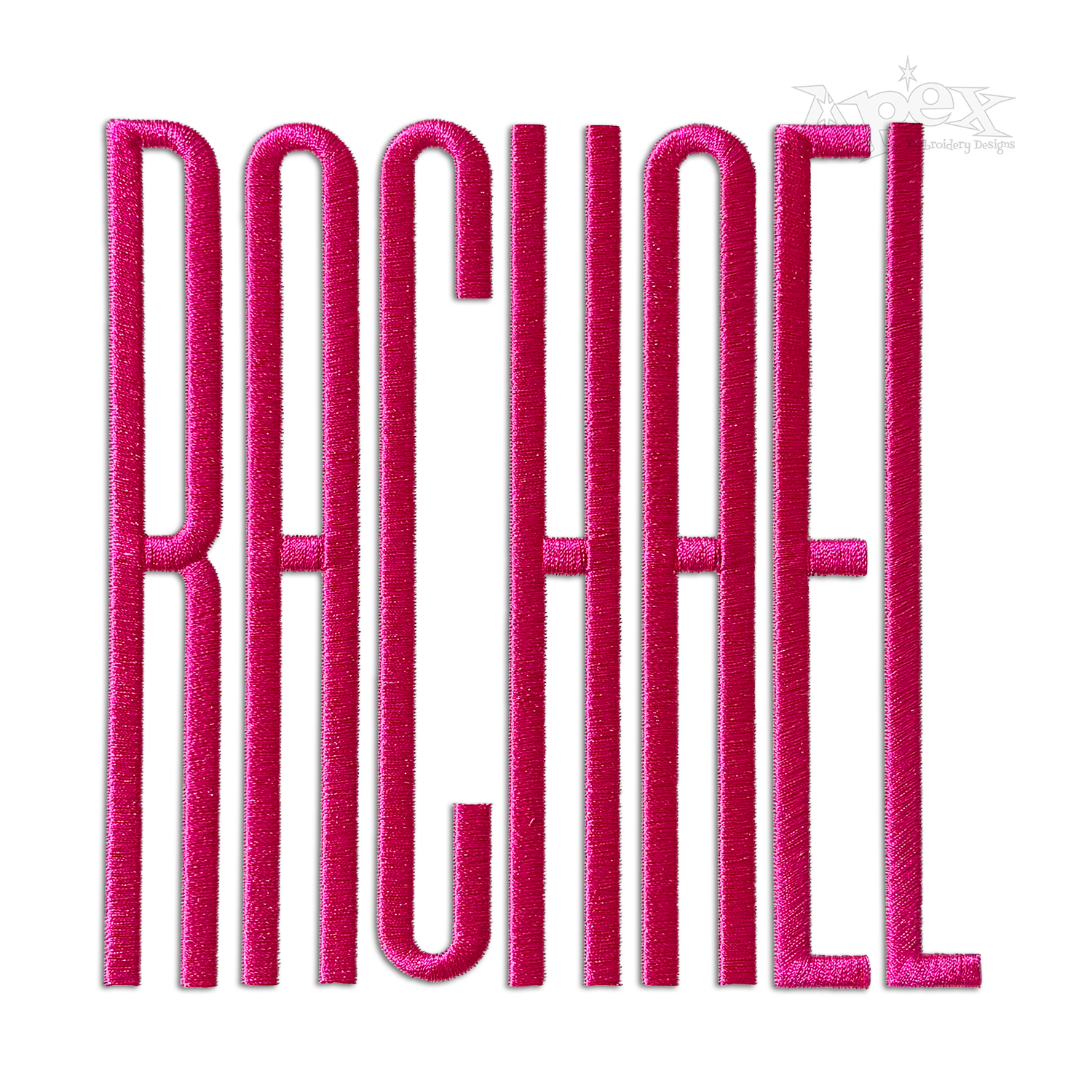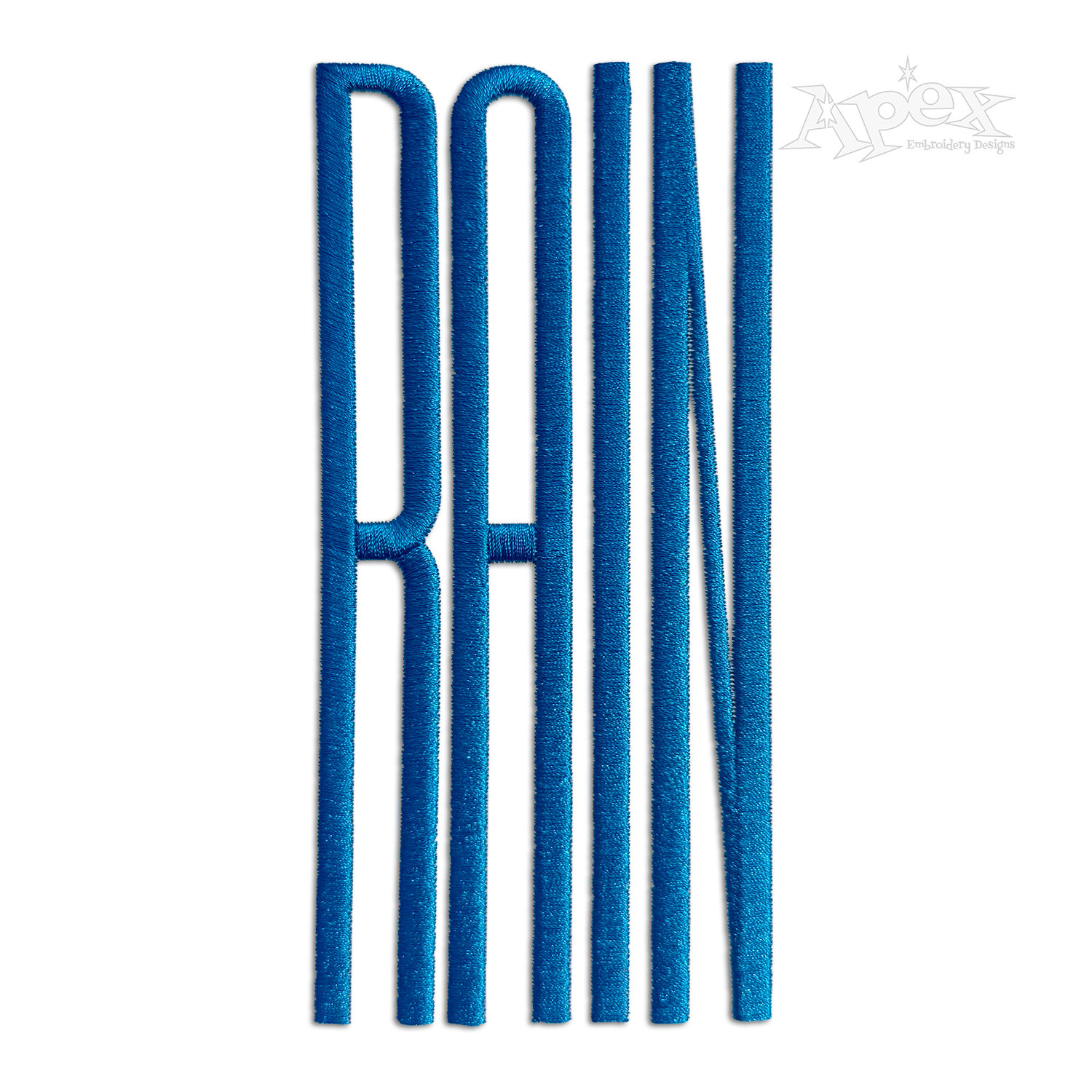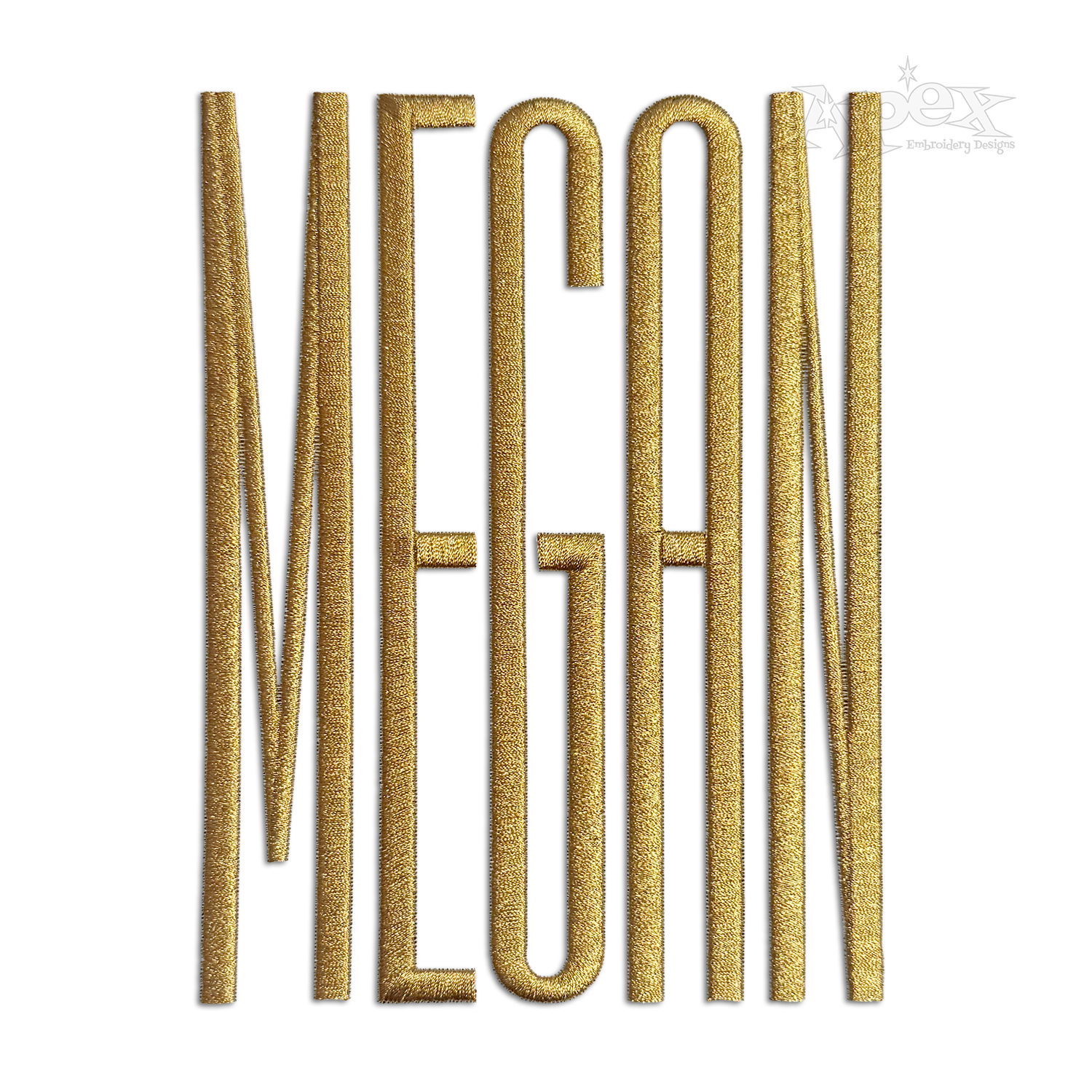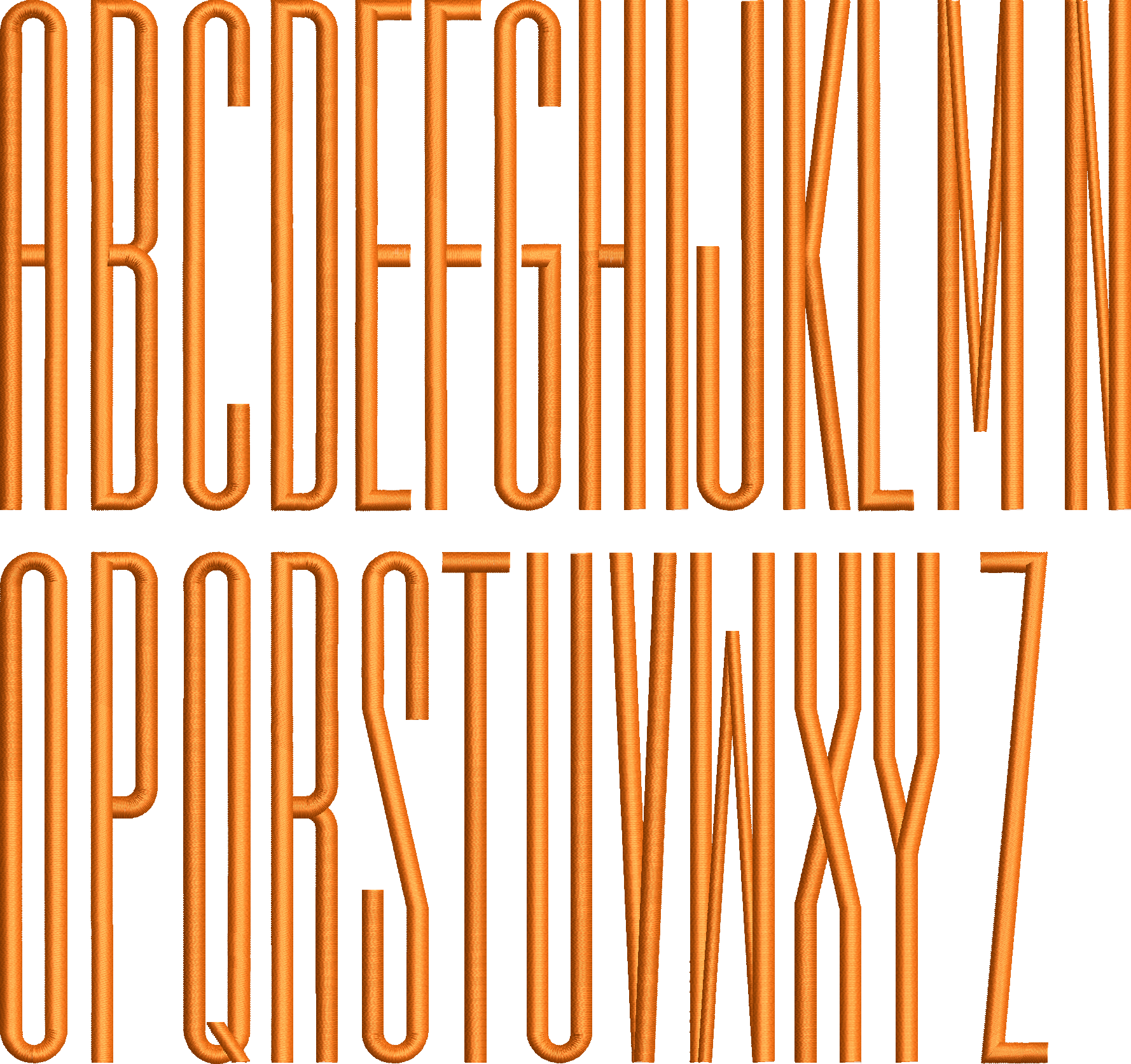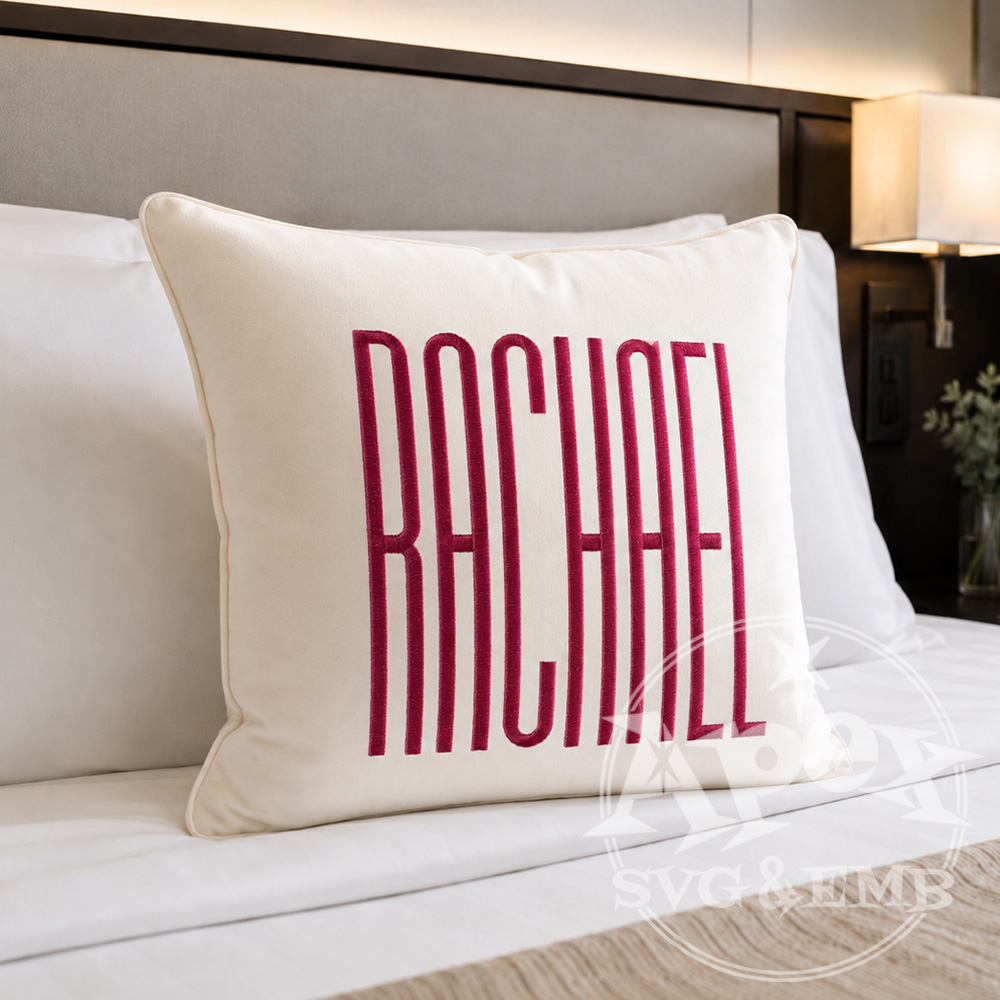
Statuesque Tall Skinny Thin Monogram Embroidery Font
Super Chic Tall personalized gifts and home décor with this Statuesque Slim Embroidery Font. Featuring a classic tall with chic stylish embroidery monogram set is perfect for customizing hats, linens, towels, baby gifts, tote bags, and more.
This embroidery font collection includes complete size sets with uppercase monogram letters designed for creating stunning monograms. Each font comes professionally digitized for smooth stitching and excellent embroidery results.
- Chic Statuesque Monogram Font
- Tall Skinny Thin for 3-Letter Monograms or Full Names
- Custom Home Décor Projects